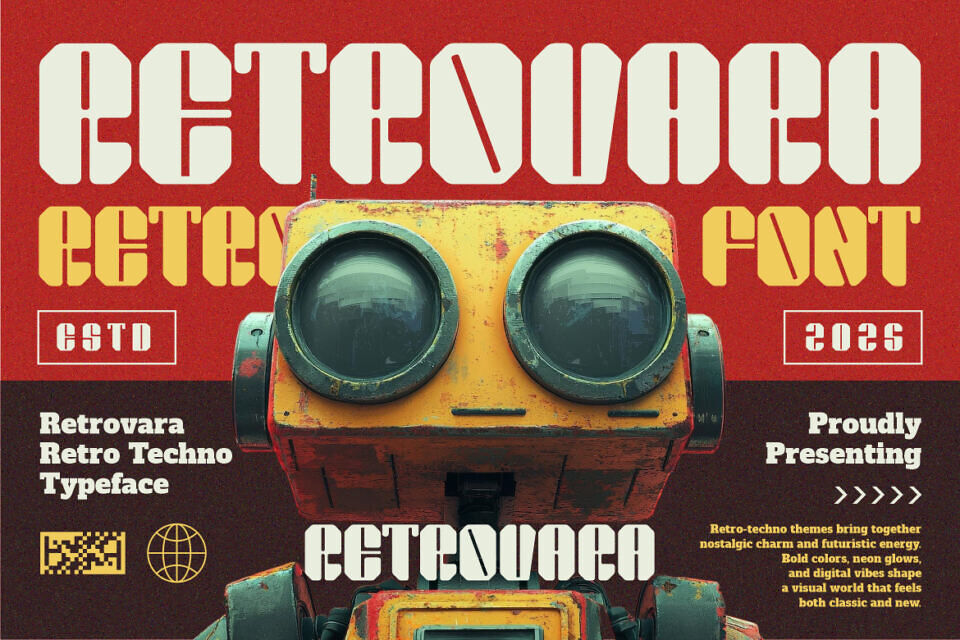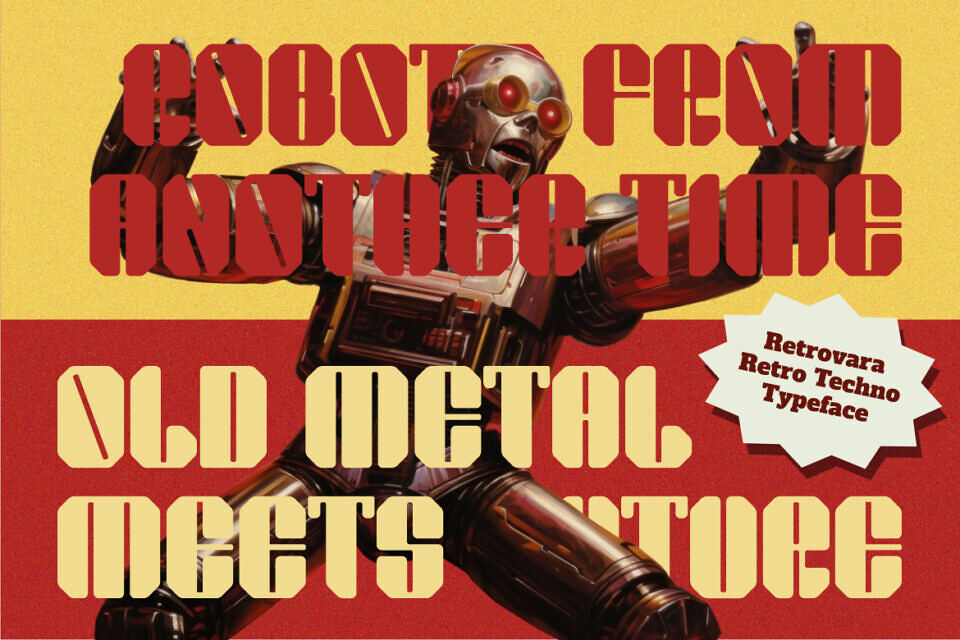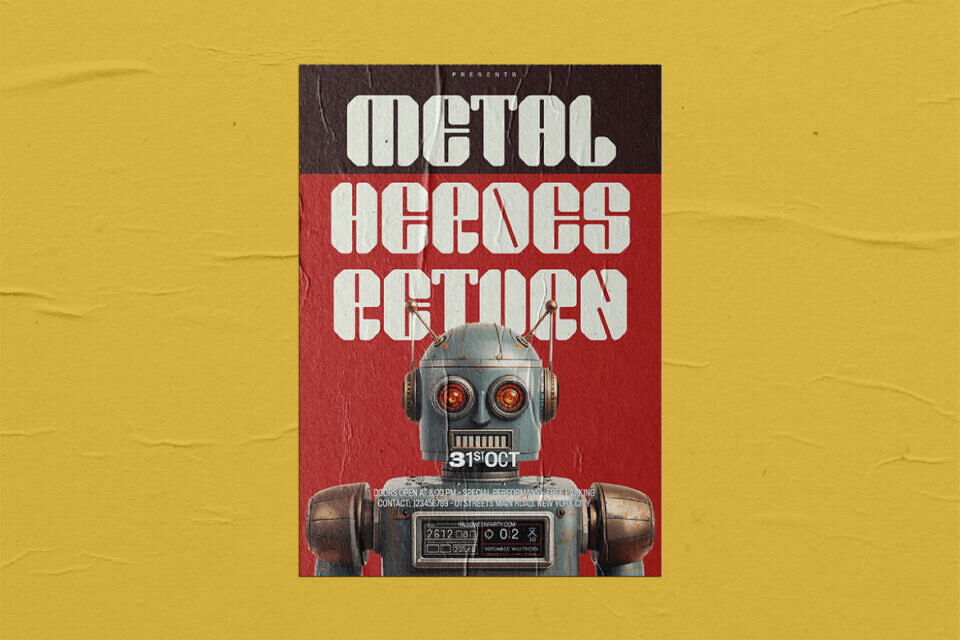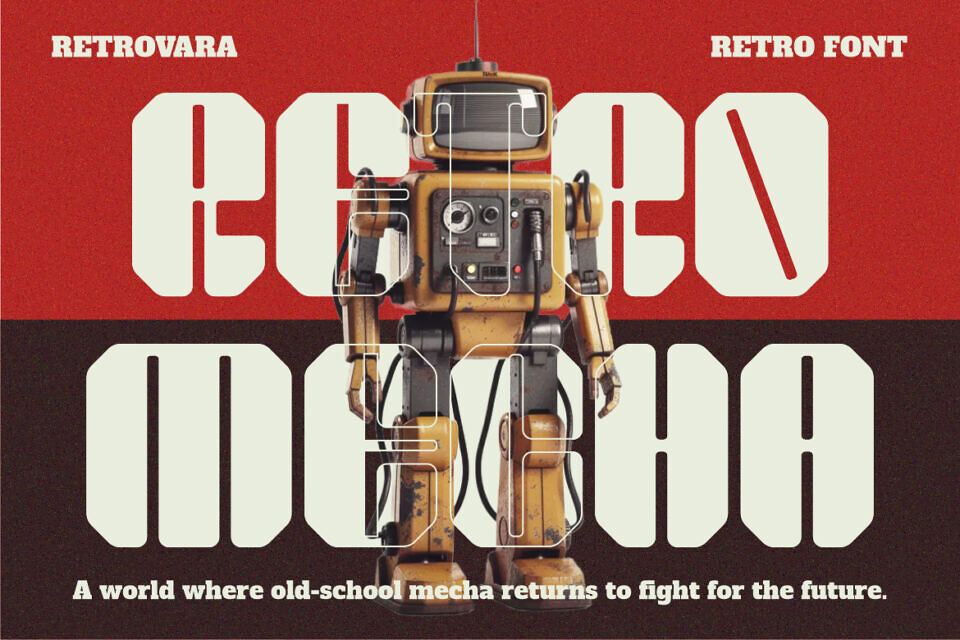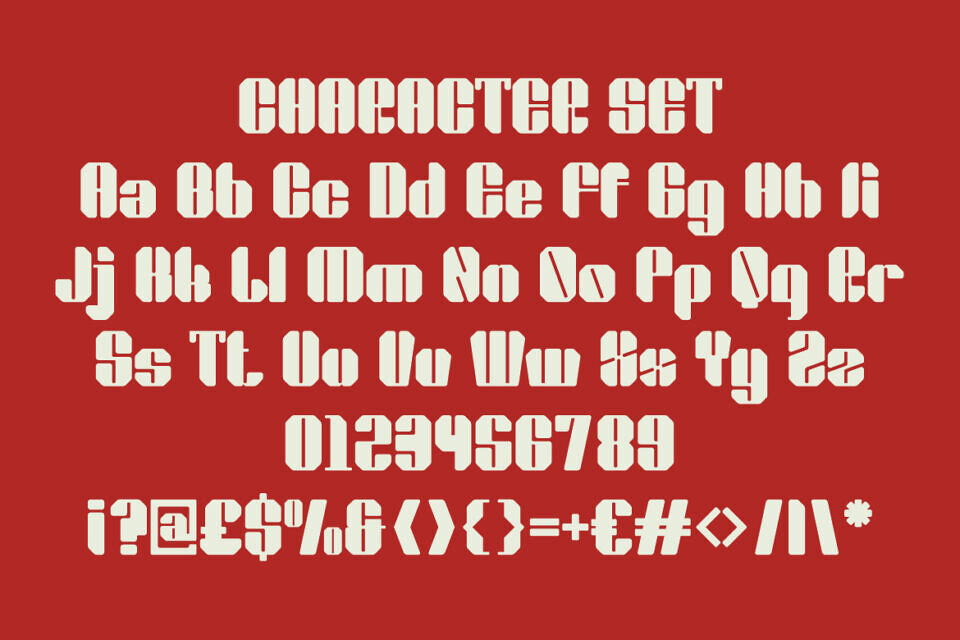
Retrovara Font
The Retrovara font features bold proportions and a confident look. Its wide strokes, sturdy forms, and controlled spacing create a solid appearance. With rounded edges and strong silhouettes, it remains clear at large sizes.
This font is ideal for professional designs, logos, and headlines, conveying a timeless yet energetic personality with a classic retro tone and techno edge. Its bold construction makes messages feel confident and reliable, making it suitable for various creative projects.